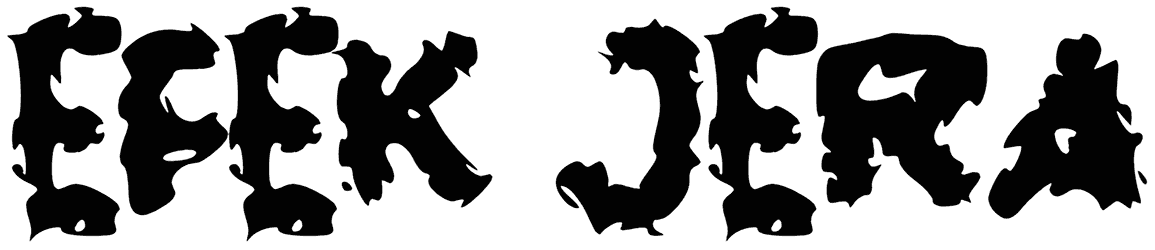
e Efek Jera Font
Do you want to present your design in the coolest way that everyone will fall in love with it? We have a great offer for you that can bring an artistic and catchy vibe. e Efek Jera is a destroyed font with a hand-drawn s…
Do you want to present your design in the coolest way that everyone will fall in love with it? We have a great offer for you that can bring an artistic and catchy vibe.
e Efek Jera is a destroyed font with a hand-drawn style. If you want to show off your creativity, try this item for your upcoming designs, from movie posters to apparel, and be impressive.